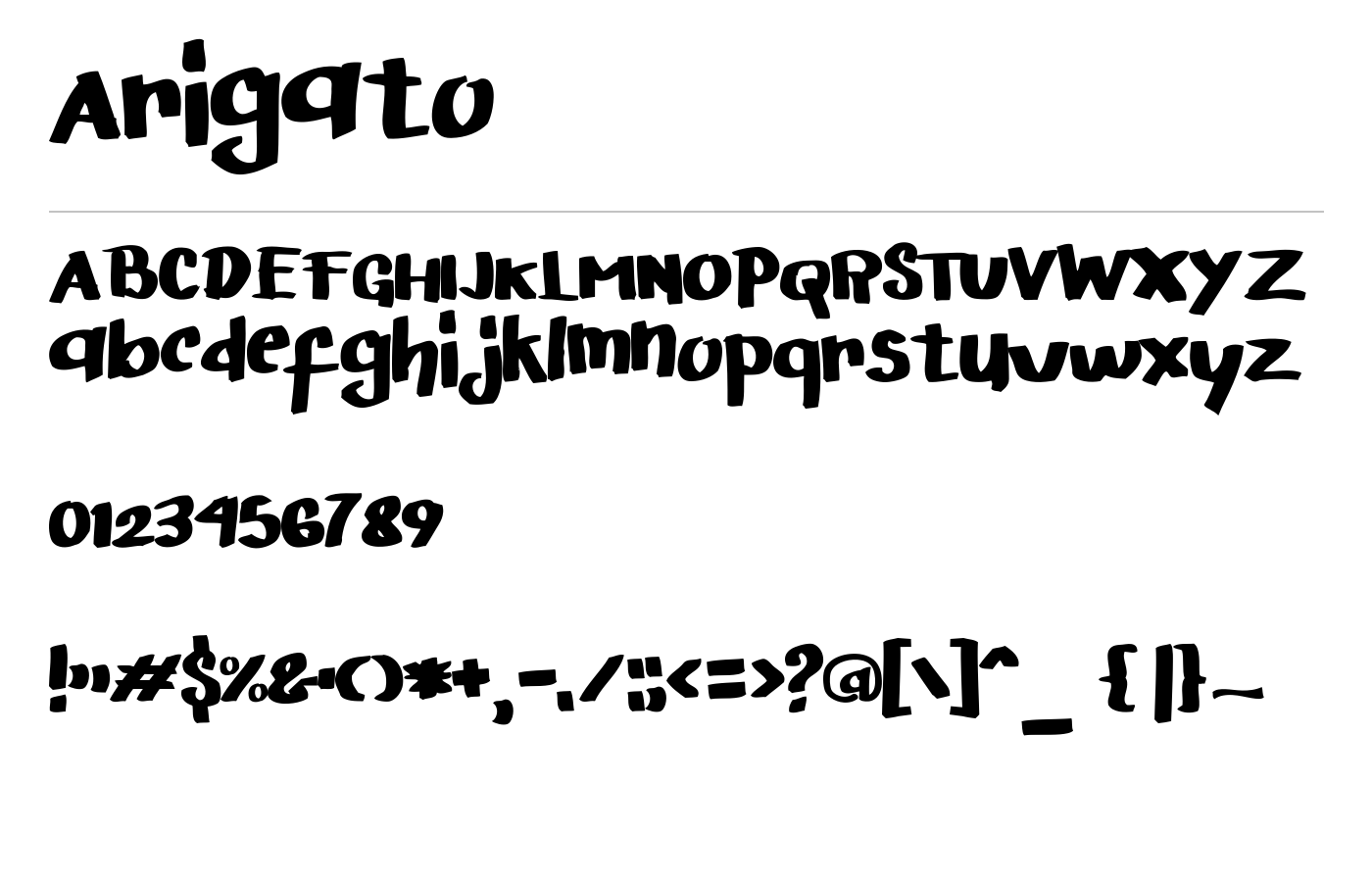
Arigato is a bold, playful sans serif font with a hand-drawn feel, featuring irregular, slightly condensed letterforms and a high x-height that adds to its readability. Its uneven strokes and quirky shapes give it a lively, informal personality, making it ideal for fun, creative projects, children’s materials, and casual branding that wants to stand out with a unique, friendly vibe. This font works best in headlines, logos, and packaging where a cheerful and approachable tone is desired.
Arigato Font
About Arigato Font
| Font family | Arigato Font |
| Designer | debutstudio |